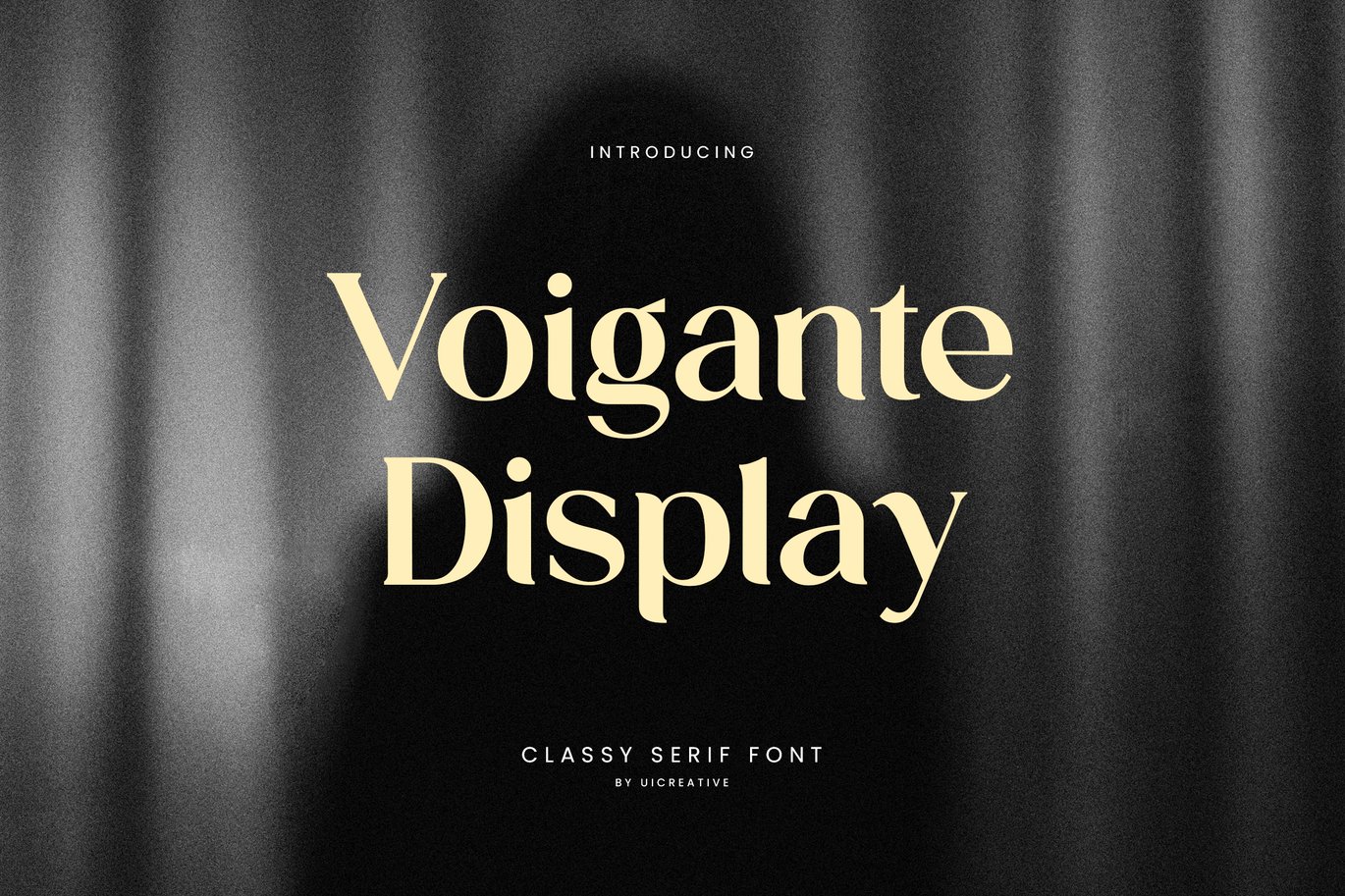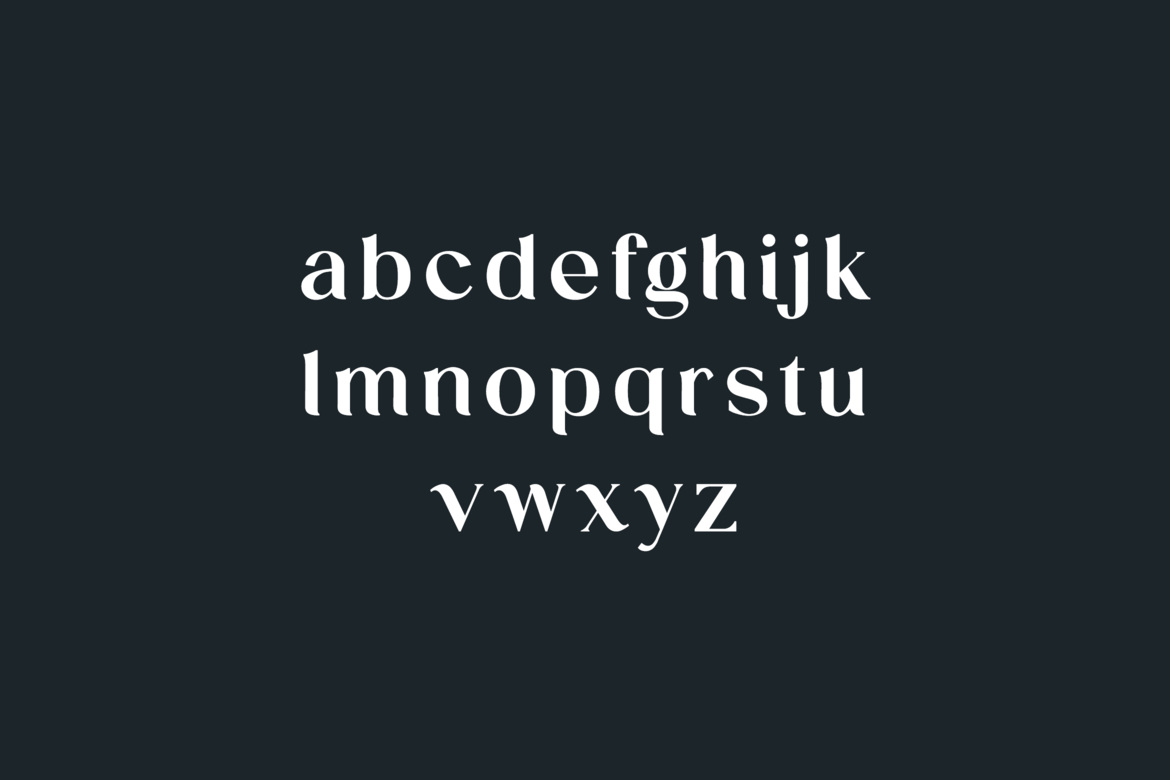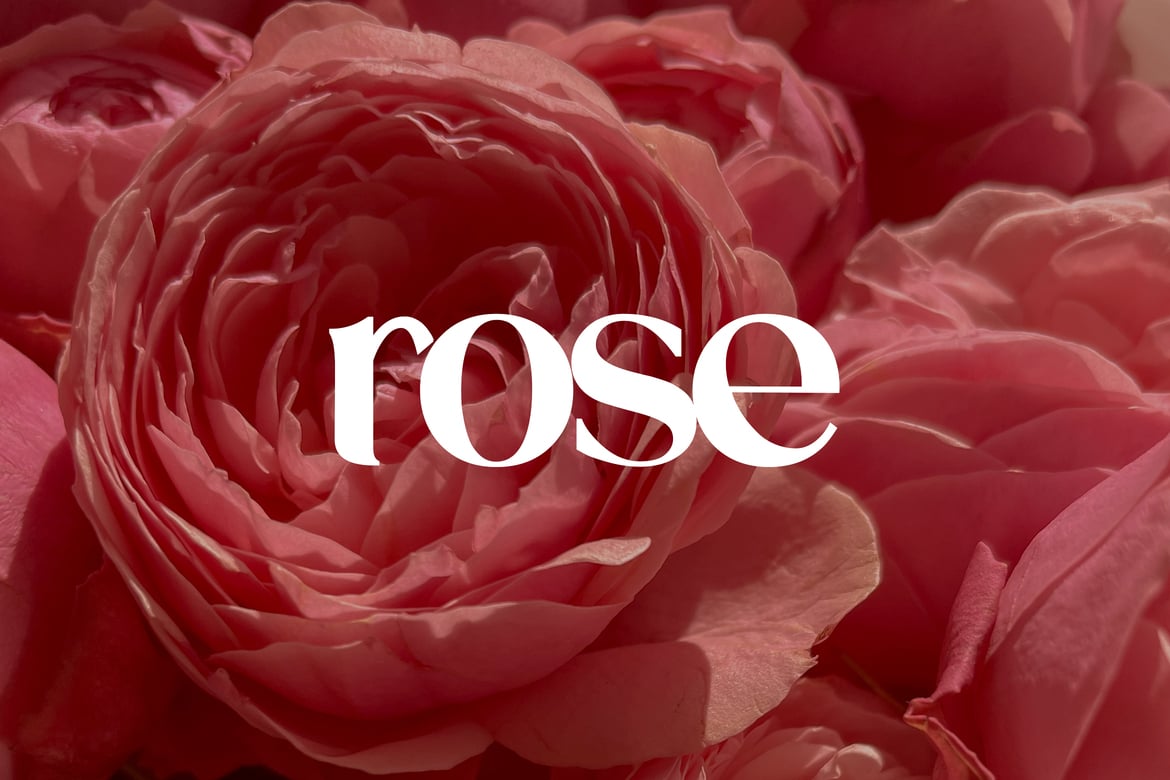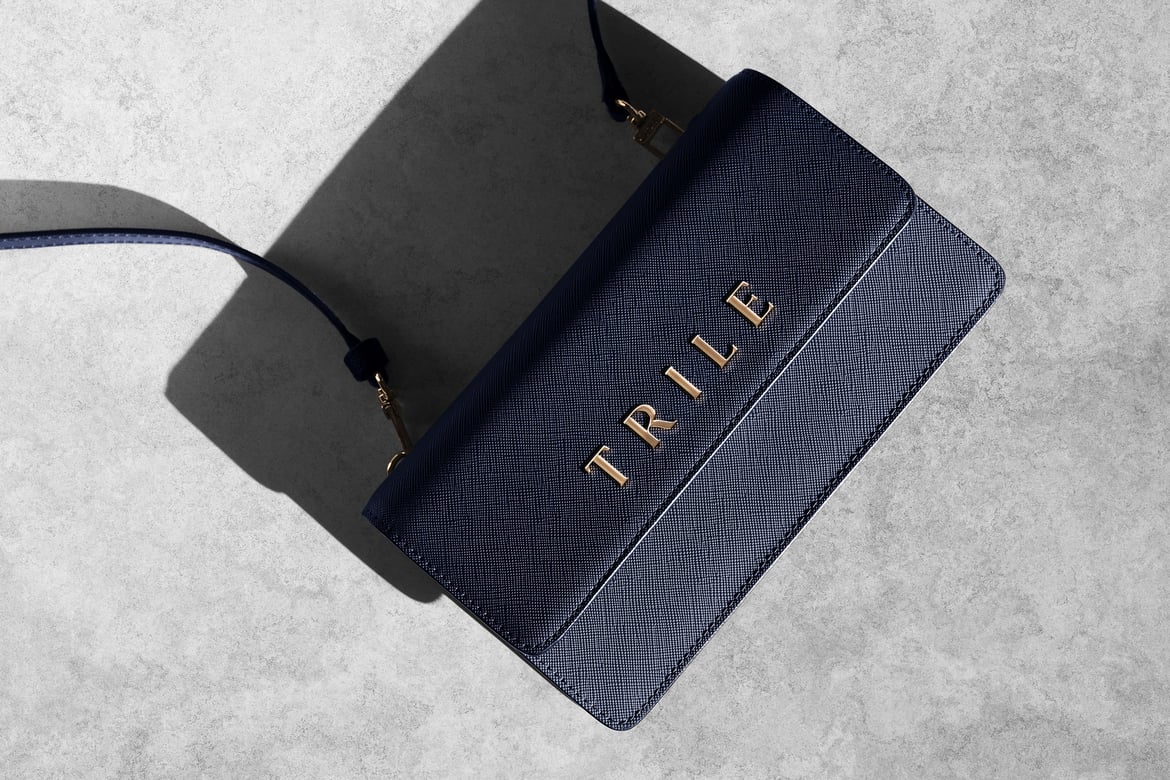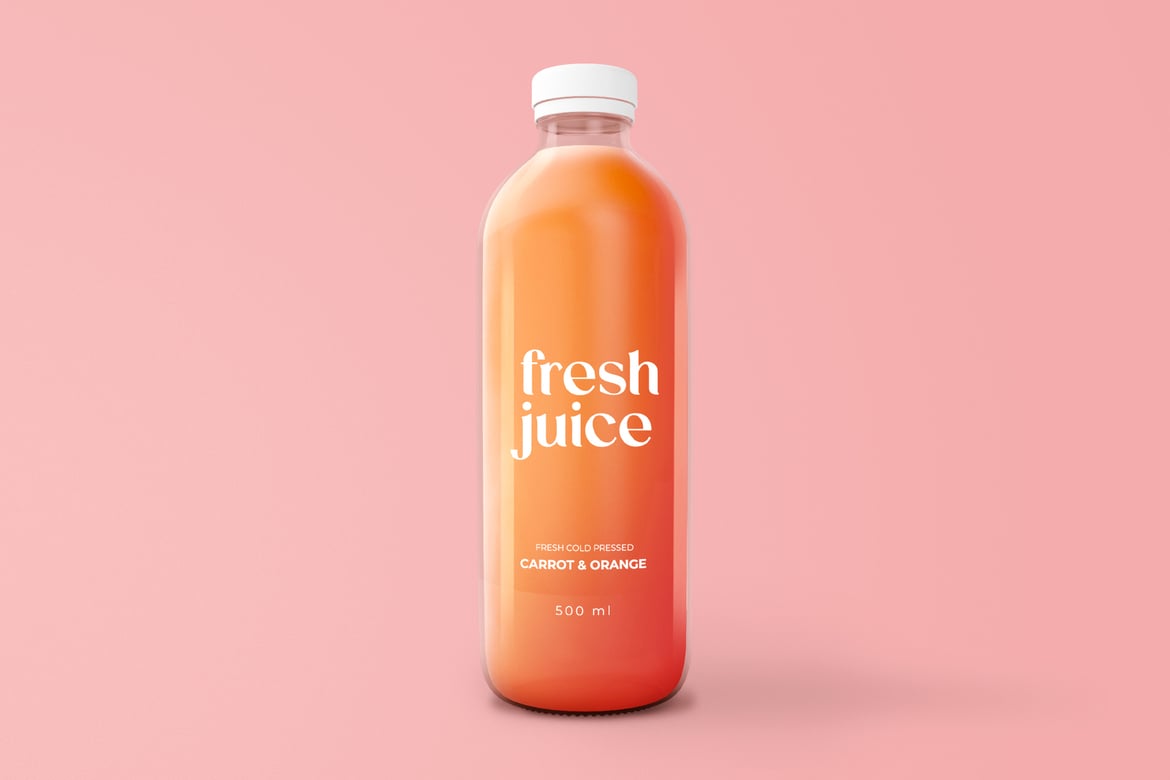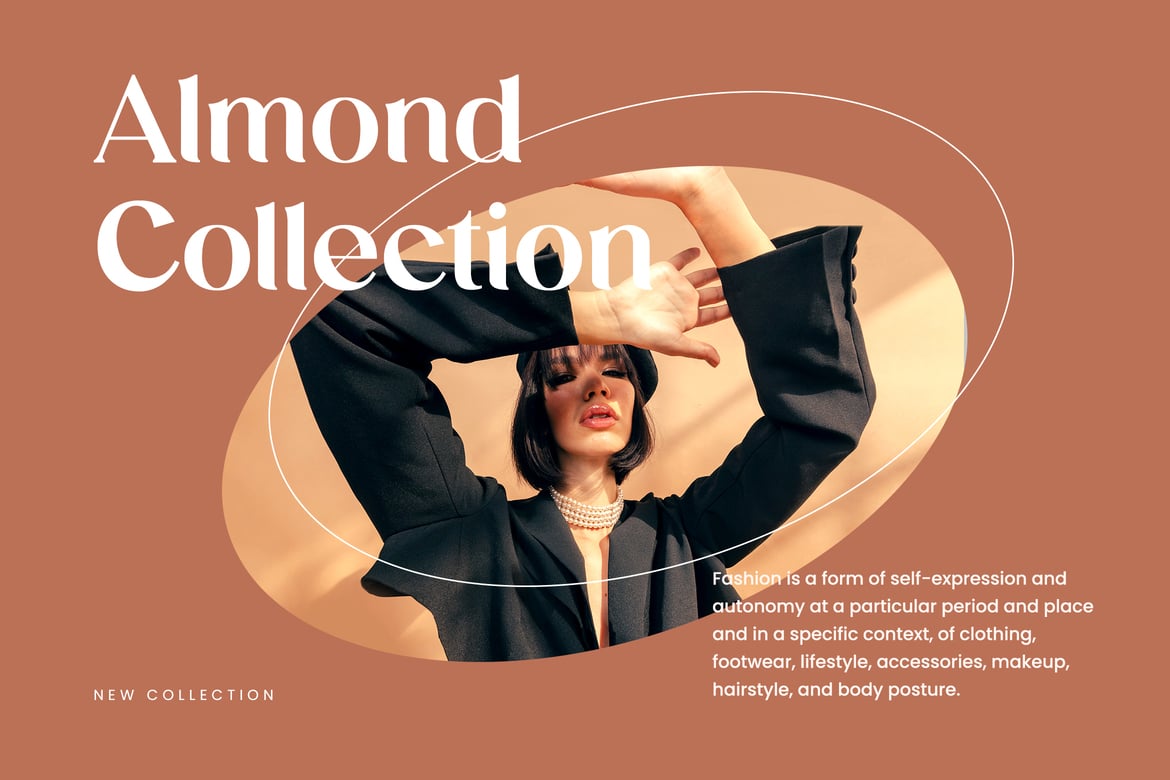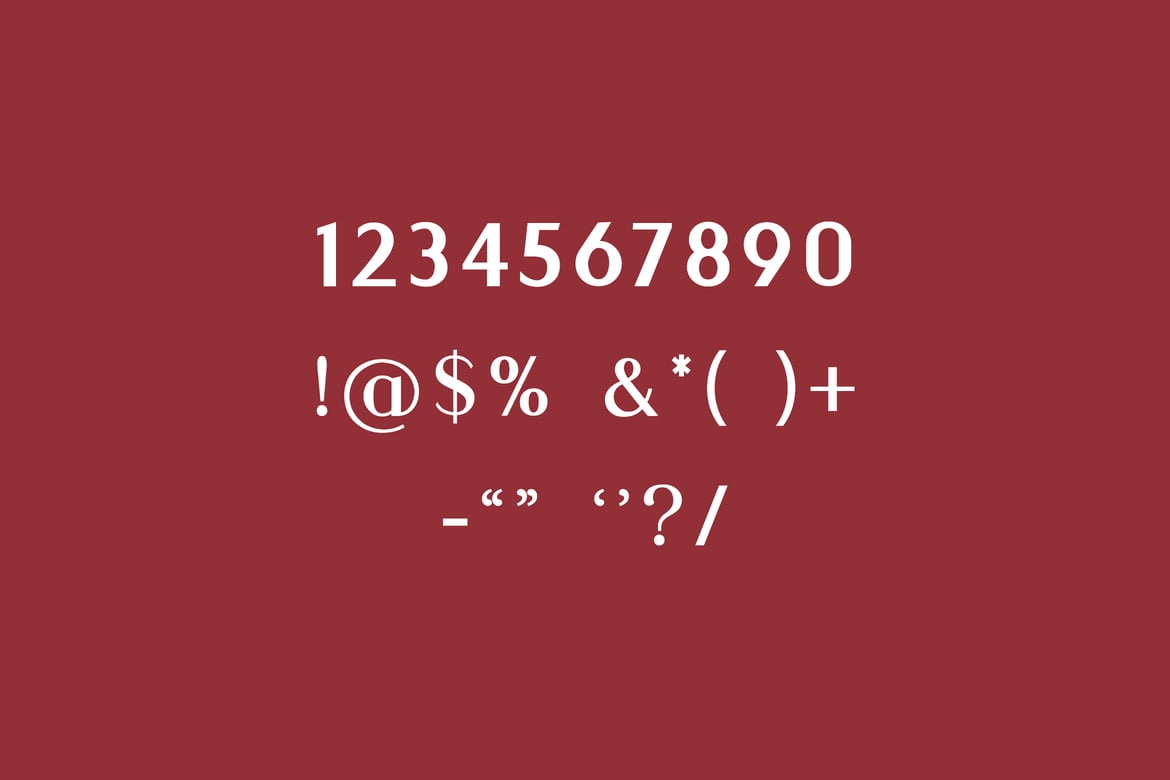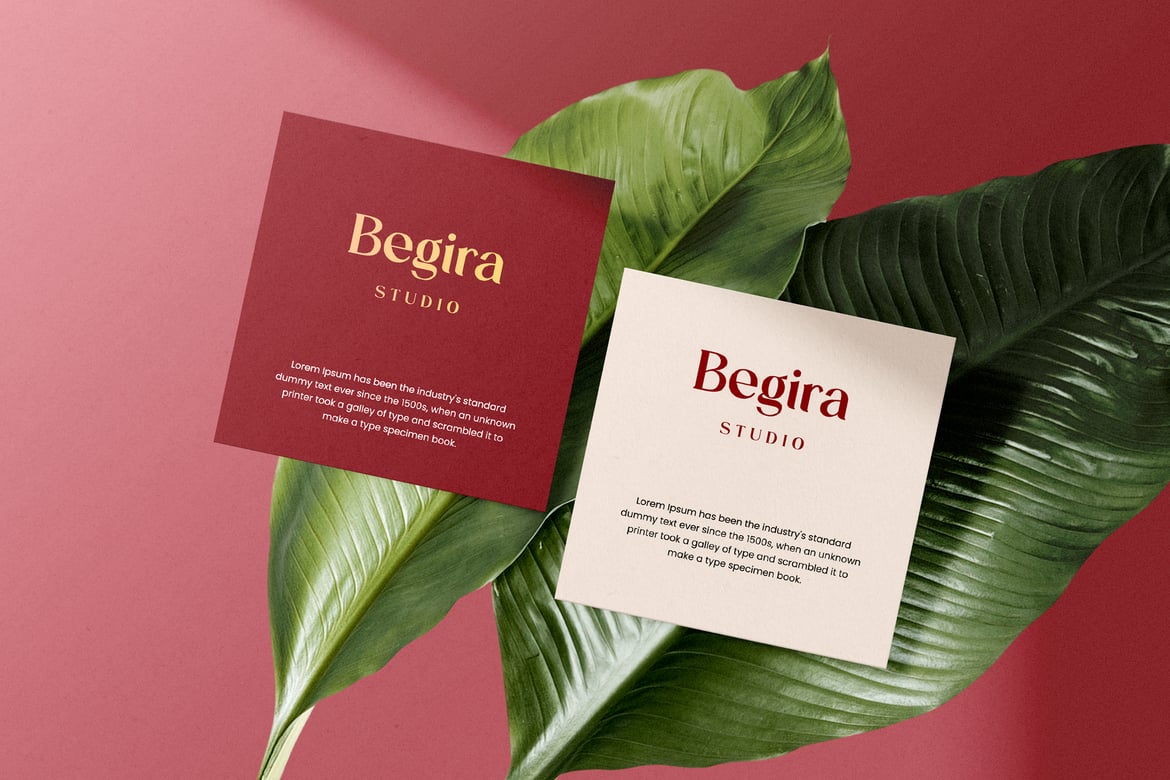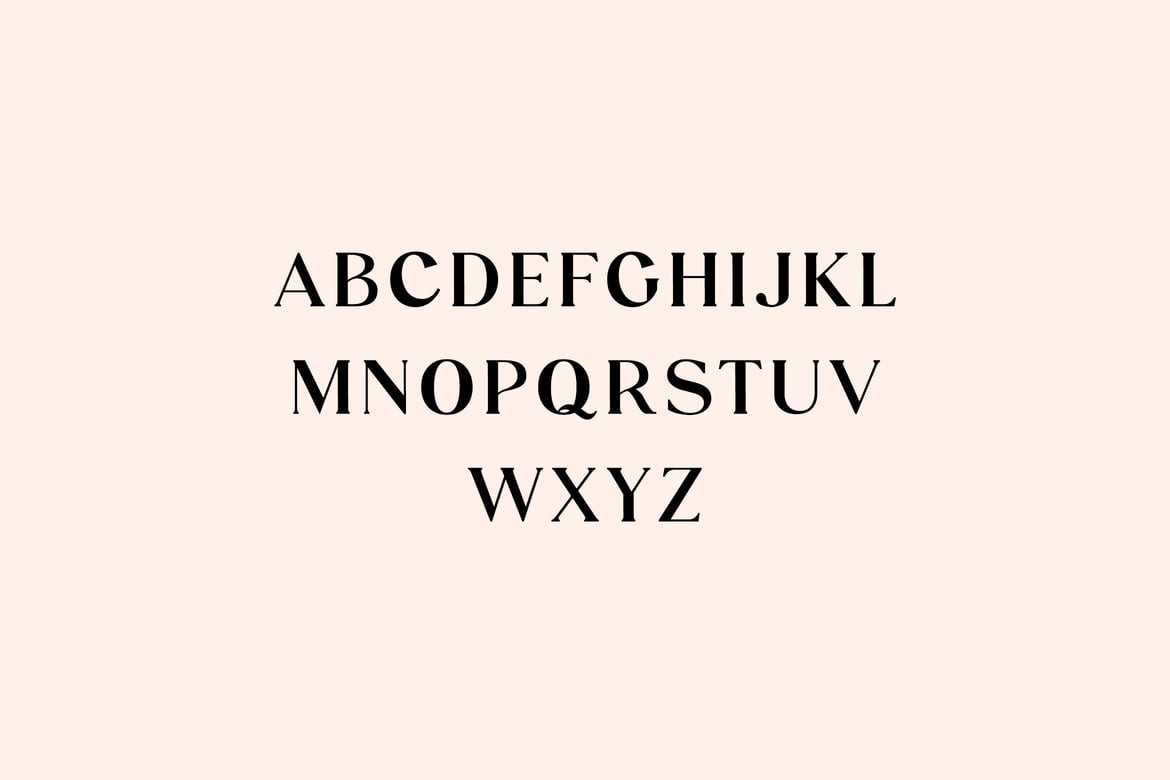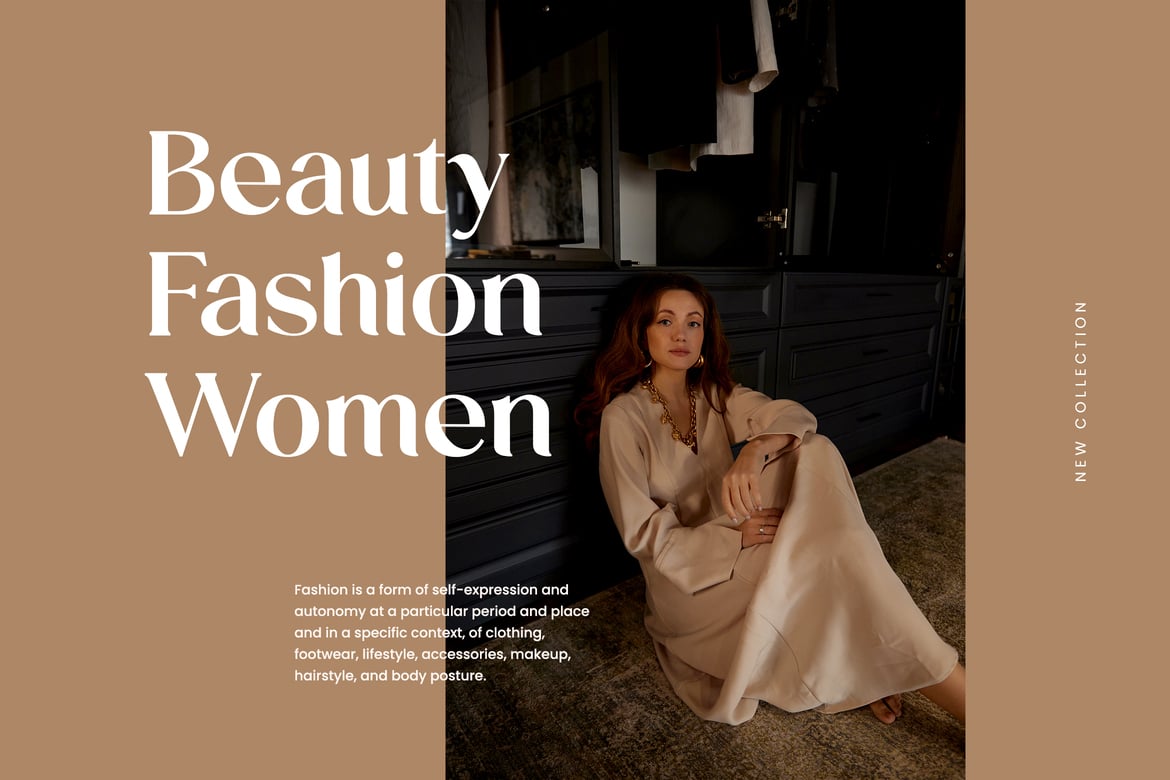
Voigante Display Classic Serif Font
Introducing our new product the name is Voigante Display Classic Serif Font. Modern Serif font that feels beautiful classy, elegant, and modern. This font is perfectly suited for a wide variety of projects, such as signature, stationery, logo, wedding, typography quotes, magazine or book cover, website header, clothing, branding, packaging design, and more. Also, fashion-related branding or editorial design displays both masculine and feminine qualities.